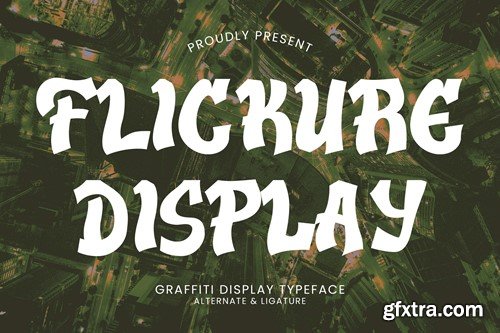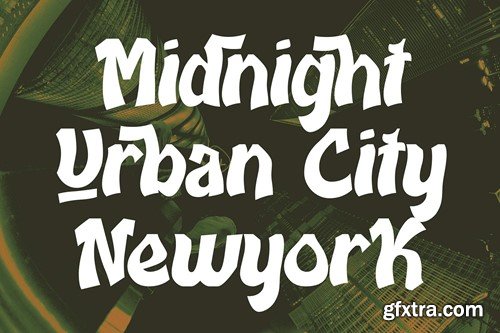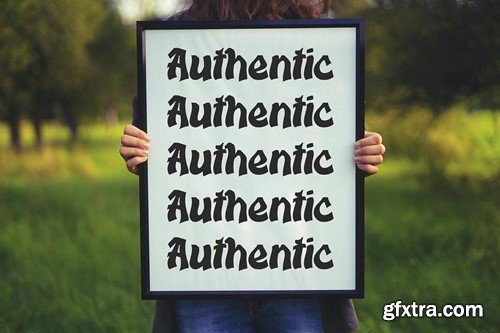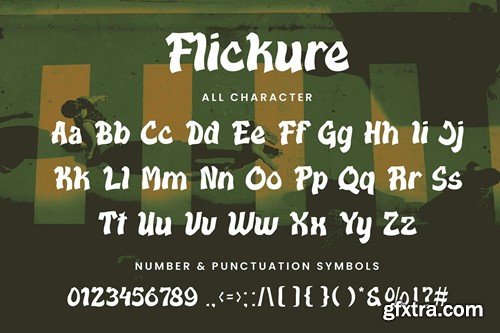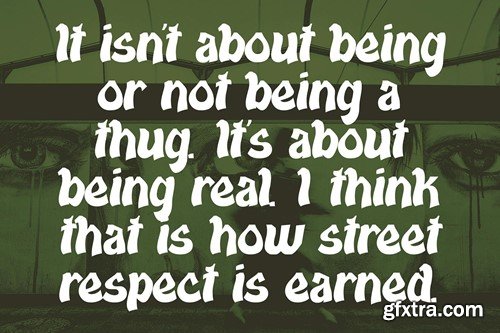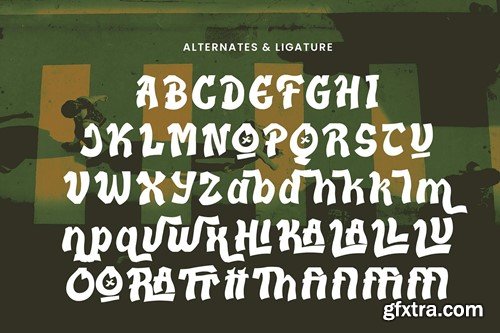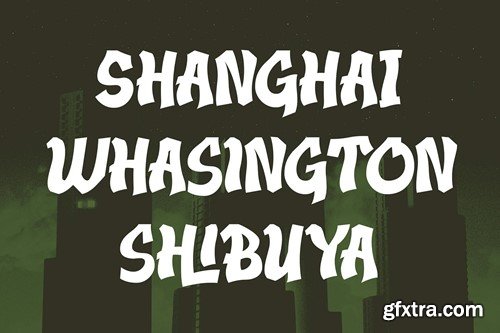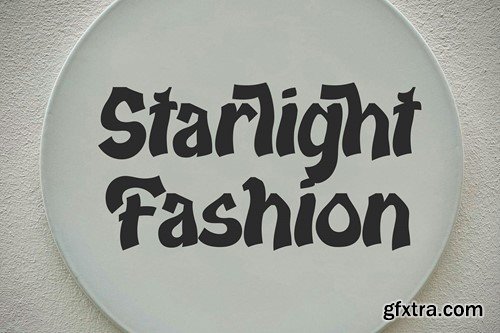
Flickure - Graffiti Font
Flickure - Graffiti Font contains a lowercase, uppercase, symbol, and also supports multi-language. There’s a lot of ligature in this font. Flickure - Graffiti Font also comes with ligatures, stylistic alternates, and many more. this font is suitable for fashion, branding, catalog, and other designs that you want. File Includes :